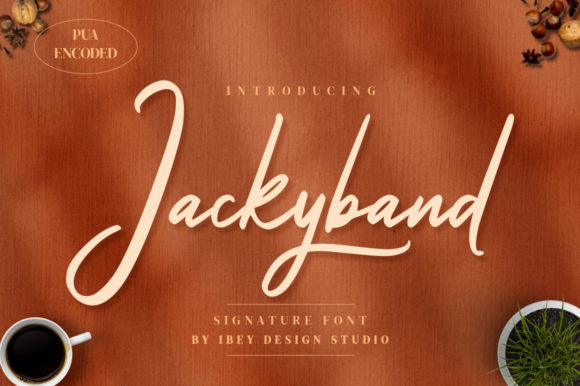
Jackyband: A Script Font for Editorial Grace
There’s a moment in every editorial project when you’re faced with the challenge of choosing the right font. It’s not just about aesthetics—it’s about how the typeface will shape the reader’s experience, guide their eye, and reflect the brand’s identity. Recently, I found myself in that situation while redesigning a lifestyle blog header. The goal was to create something elegant yet approachable, something that felt personal without being too informal. That’s when I came across Jackyband, a script font from the Script Amp collection.
A Handwritten Vibe with Editorial Purpose
Jackyband is a signature font that brings a lovely handwritten vibe to any design. Its flowing strokes and subtle irregularities give it a sense of warmth and individuality, making it ideal for branding, signatures, watermarks, and creative layouts. As a script font, it’s designed to feel expressive and inviting, which aligns perfectly with the tone of many editorial projects.
What sets Jackyband apart is its balance between expressiveness and readability. While it has the charm of a handwritten style, it doesn’t compromise on clarity. This makes it a versatile choice for both display purposes and more structured content. Whether you're crafting a magazine cover or designing a newsletter graphic, Jackyband can help establish a cohesive visual language.
Testing Jackyband in Real Editorial Layouts
I tested Jackyband in several real-world scenarios, including a lifestyle blog redesign, a recipe ebook, and a wedding guide. In each case, the font added a touch of personality without overwhelming the content. For the blog header, I used it as the main title font, pairing it with a clean sans serif for body text. The contrast worked well, creating a clear visual hierarchy while maintaining a friendly and approachable tone.
For the recipe ebook, Jackyband was used for chapter openers and pull quotes. Its fluid lines made the text feel more engaging, especially when paired with high-quality images. It didn’t interfere with the readability of the recipes, which were written in a standard serif font. The combination helped maintain a balance between visual interest and functional typography.
In the wedding guide, Jackyband was used for headings and decorative accents. It brought a romantic and timeless feel to the layout, complementing the overall aesthetic. However, I noticed that using it for dense paragraphs or small captions could be challenging. The font’s expressive nature might make it less suitable for long-form content or formal reports where clarity and consistency are paramount.
Practical Font Pairing and Design Considerations
When working with script fonts like Jackyband, it’s important to consider how they pair with other typefaces. For editorial layouts, I recommend pairing Jackyband with a readable serif or sans serif font for body copy. This ensures that the text remains legible while allowing the script font to stand out in key areas such as headers, pull quotes, or section titles.
Jackyband also works well with a clean sans serif for captions and navigation elements. This combination helps maintain a modern and professional look while still incorporating the charm of a handwritten style. When designing for print or digital formats, it’s essential to check the font’s included styles, alternates, ligatures, weights, and multilingual support to ensure compatibility with your project’s needs.
Readability Across Platforms and Formats
One of the most important aspects of any font is its performance across different platforms and formats. Jackyband maintains good readability on screen, even at smaller sizes, which is essential for mobile layouts and social media graphics. When exporting to PDF, the font retains its character and clarity, making it suitable for print materials and downloadable content.
However, it’s worth noting that Jackyband may not be the best choice for body copy in dense paragraphs or formal reports. Its expressive nature can sometimes make it difficult to read in long-form content. That said, it excels in shorter texts, such as headlines, pull quotes, and decorative elements, where its personality shines through without compromising legibility.
Conclusion
Jackyband is more than just a script font—it’s a tool for storytelling and brand expression. Its ability to blend elegance with approachability makes it a strong contender for a wide range of editorial uses. Whether you’re redesigning a blog header, creating a newsletter graphic, or building a printable planner, Jackyband offers a unique way to add character and warmth to your designs.